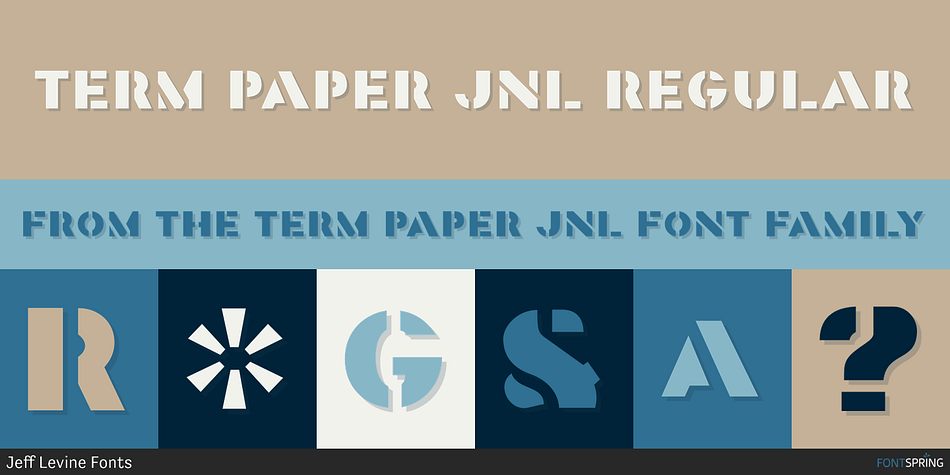
TERM PAPER JNL REGULAR
Term Paper JNL is a stencil font published by Jeff Levine Fonts.
Jeff Levine’s collection of stencil fonts based on original source material has grown by one with the addition of Term Paper JNL, a bold sans serif based on a stencil lettering guide from the 1950’s.